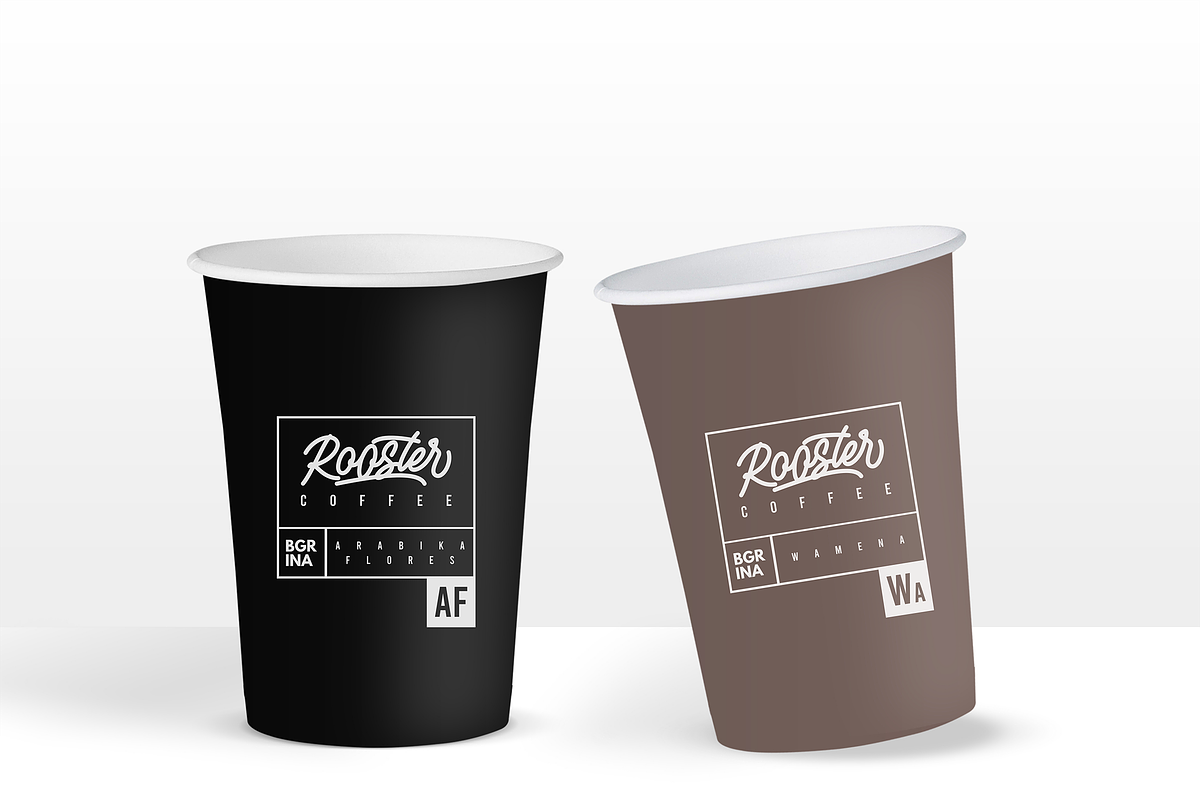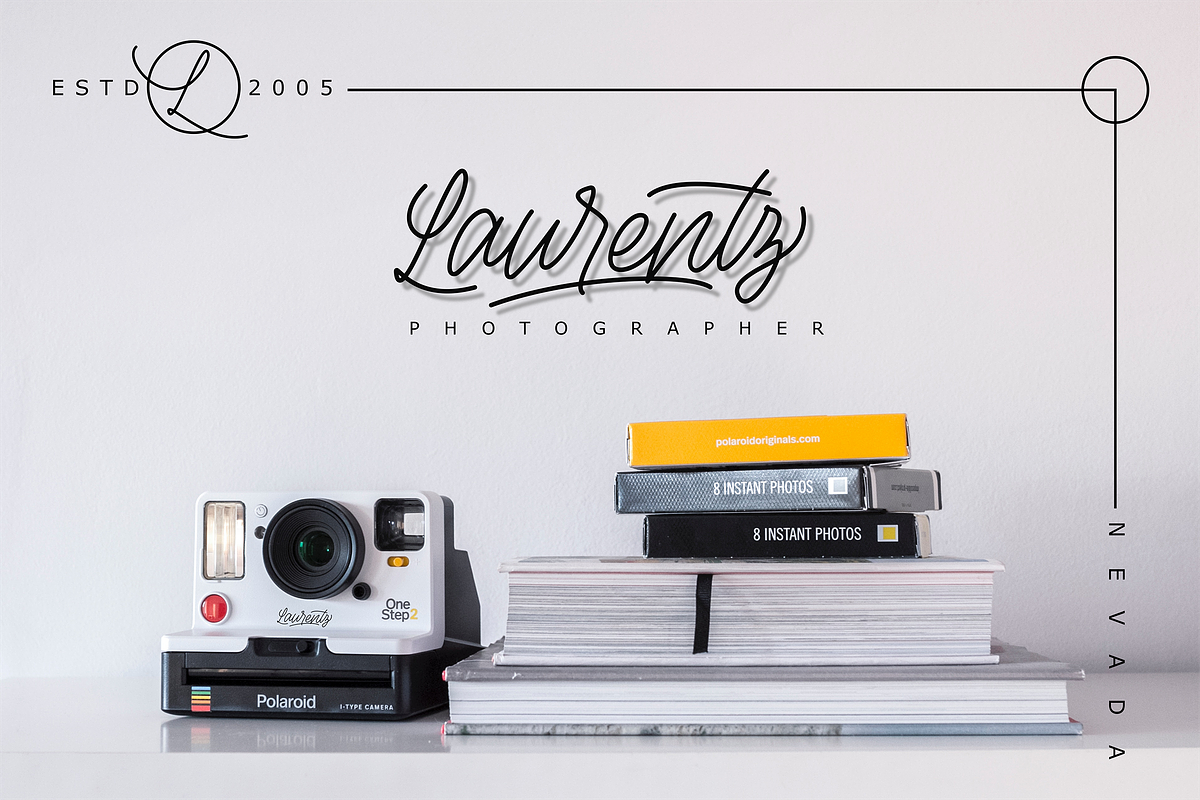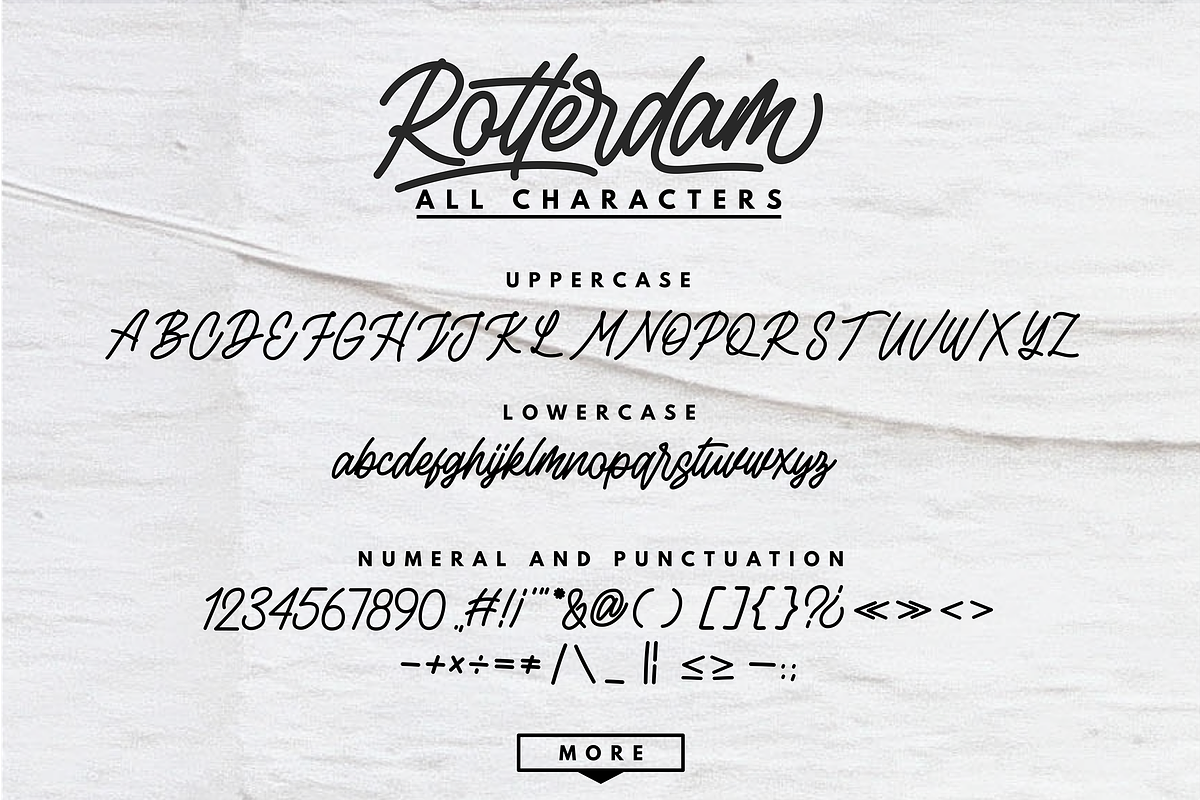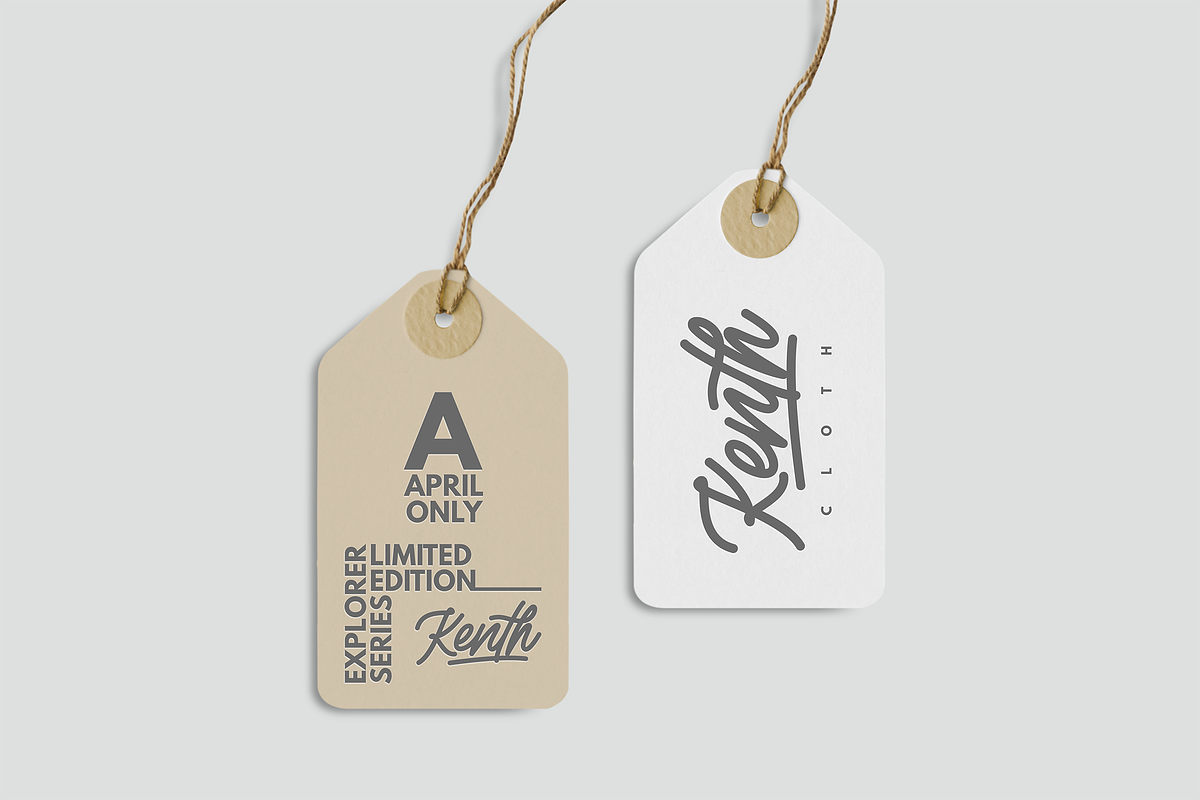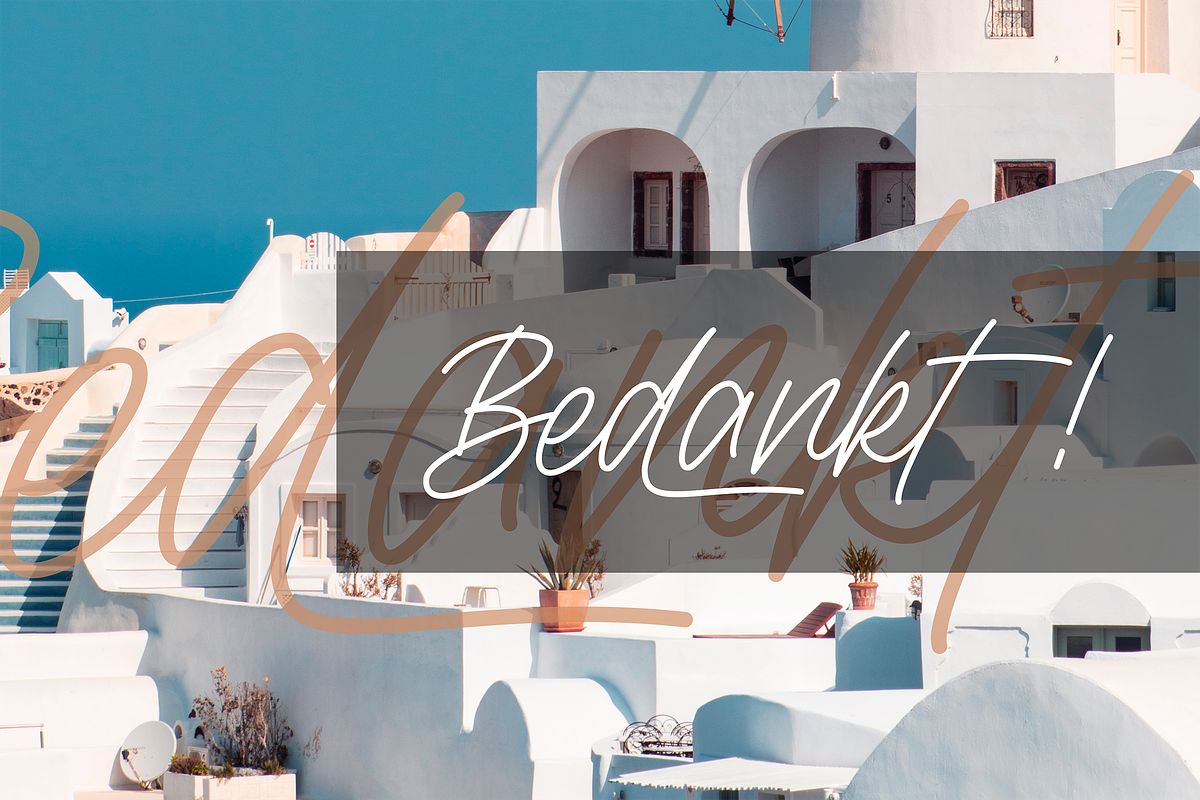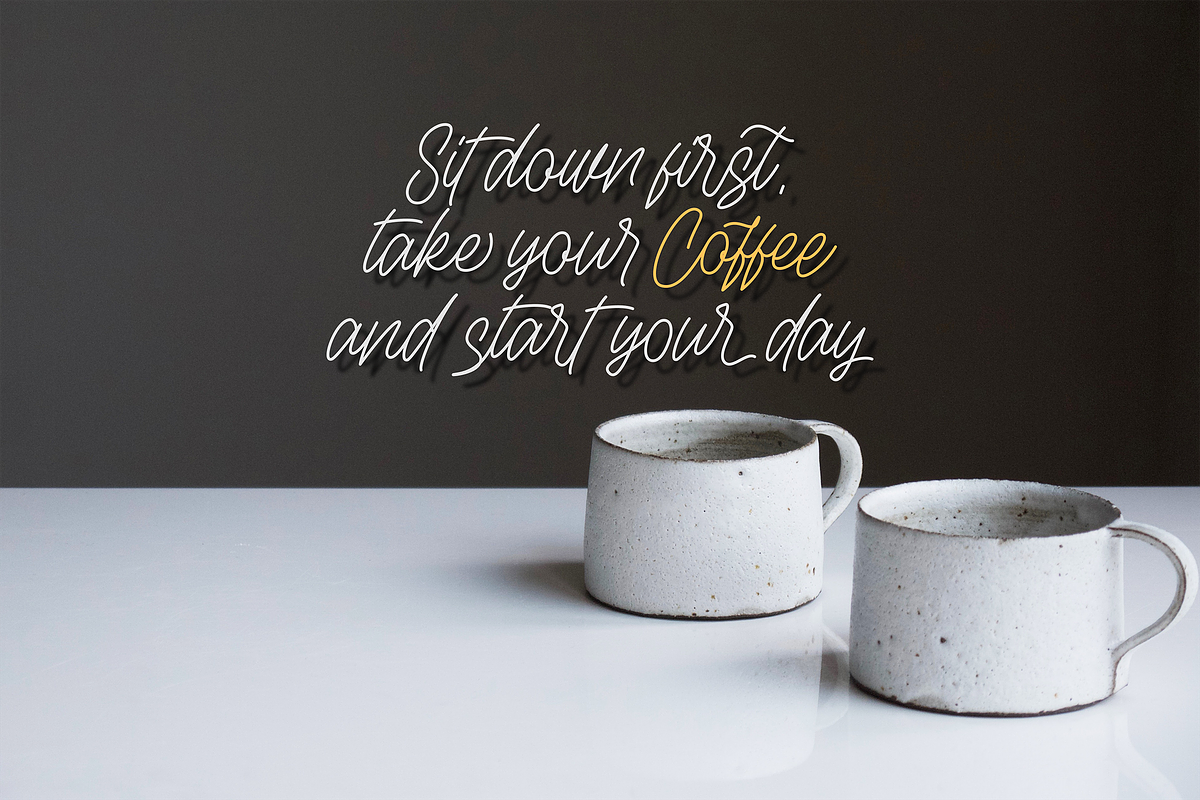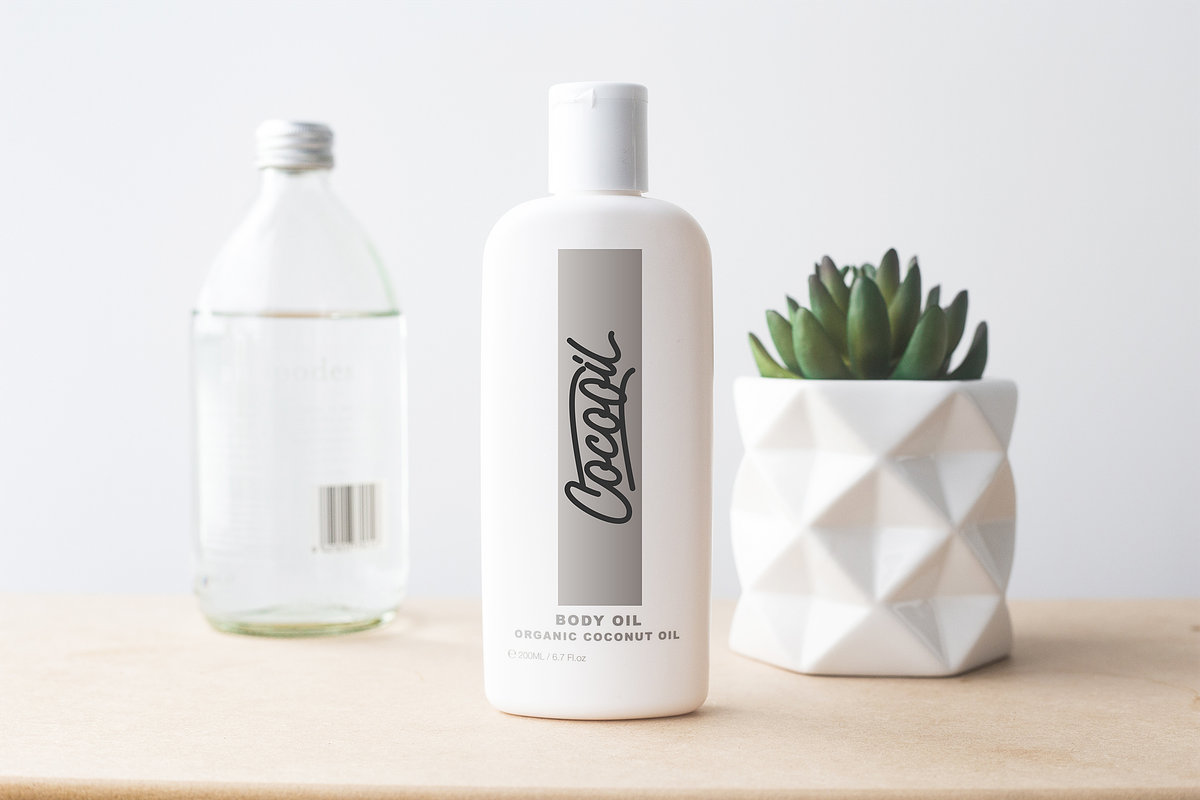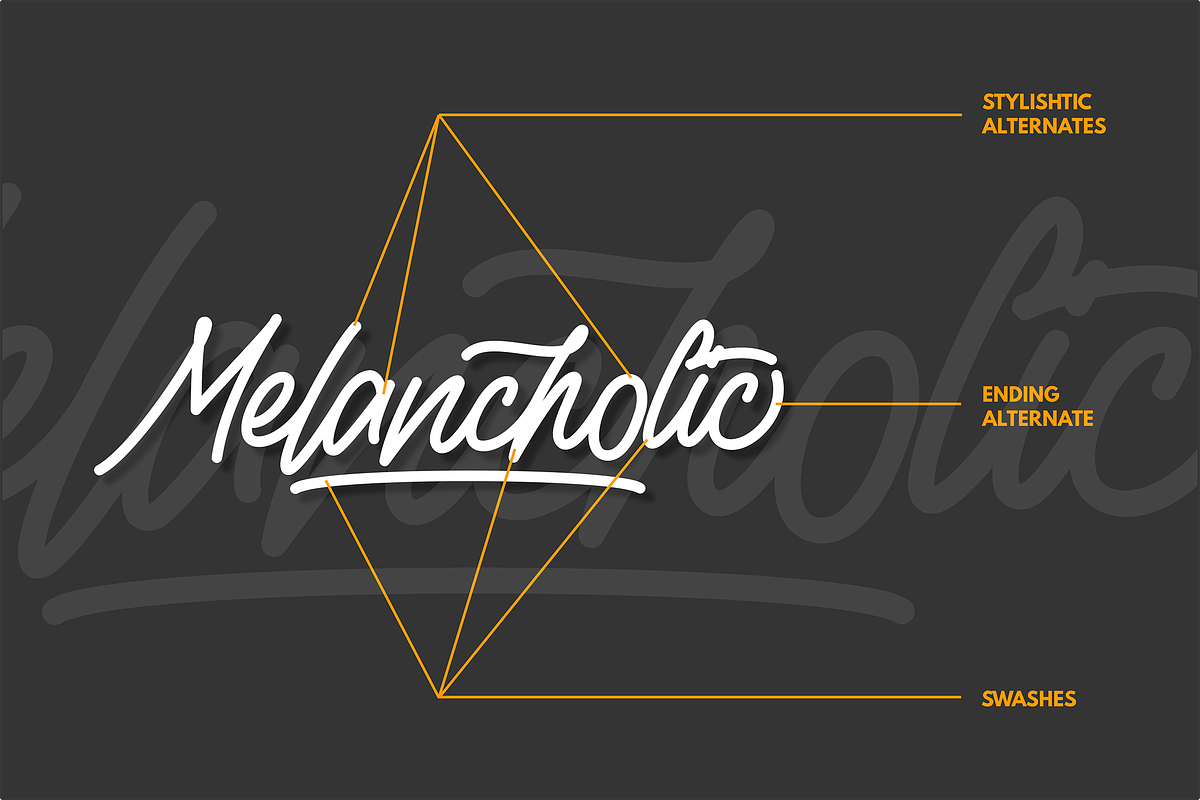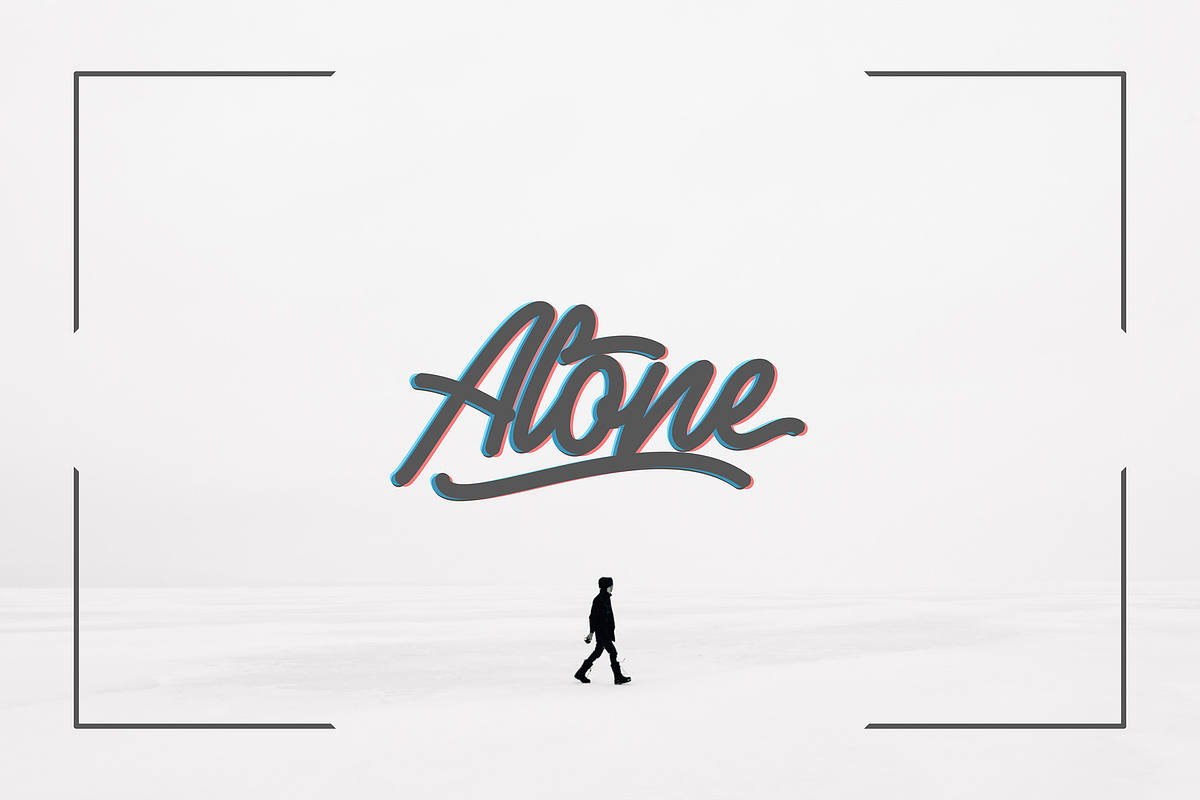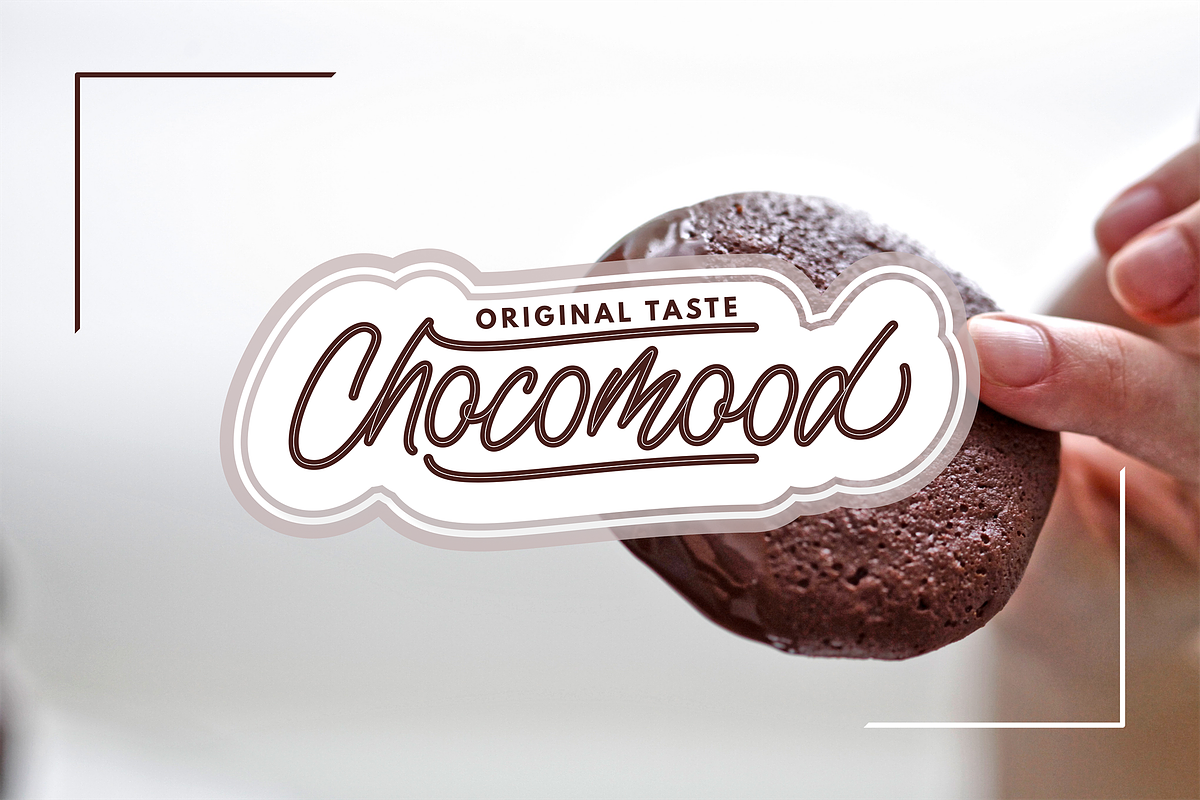
Rottordam - Regular, Thin, and Bold
"Rottordam" is a font display that is made by hand, inspired by classic posters.
comes with uppercase, lowercase, numerals, punctuations and so many variations on each character include OpenType alternates, common ligatures and also additional swash to let you customize your designs. Perfect to use for Logotype, Letterhead, Poster, Apparel Design, Label and etc.
OPENTYPE FEATURES
- Contextual Alternates
- All Alternates